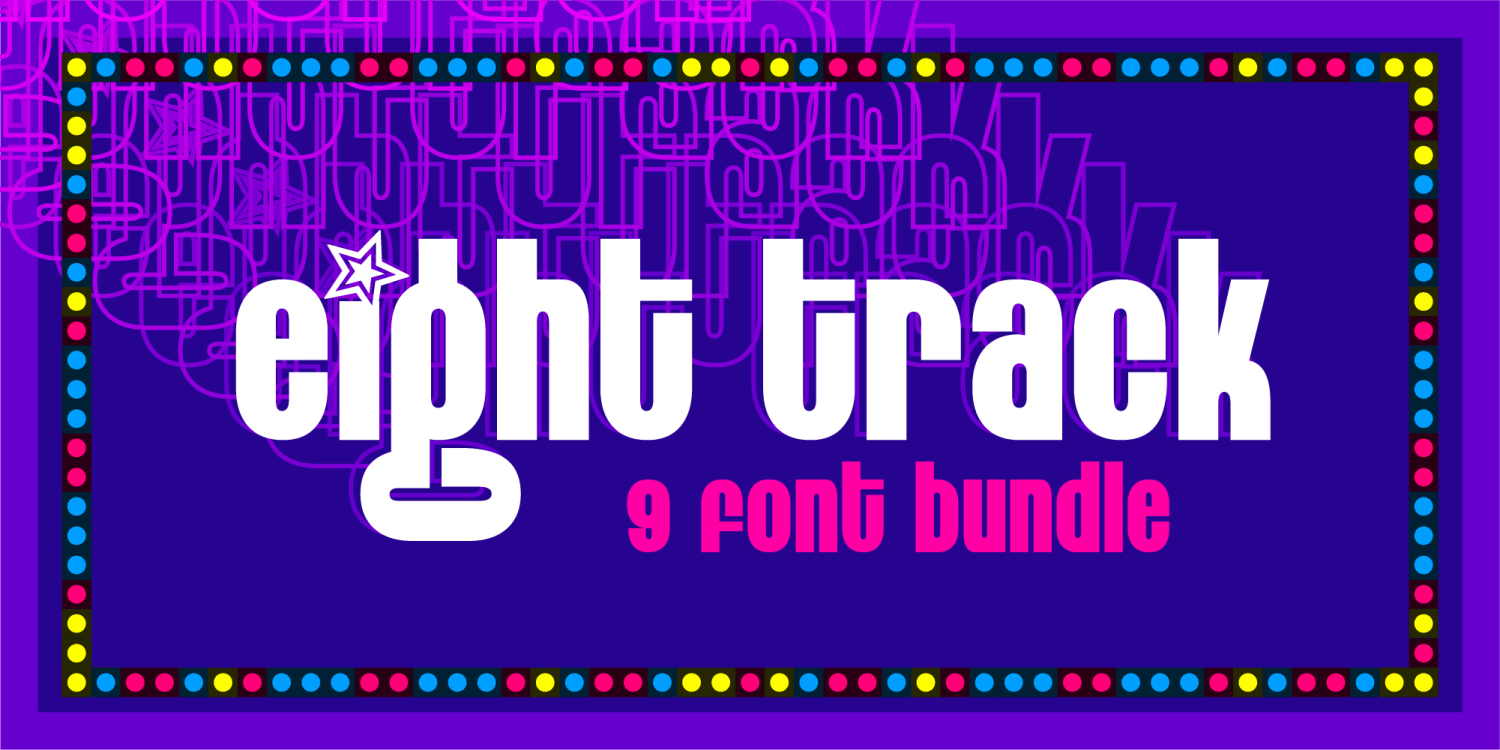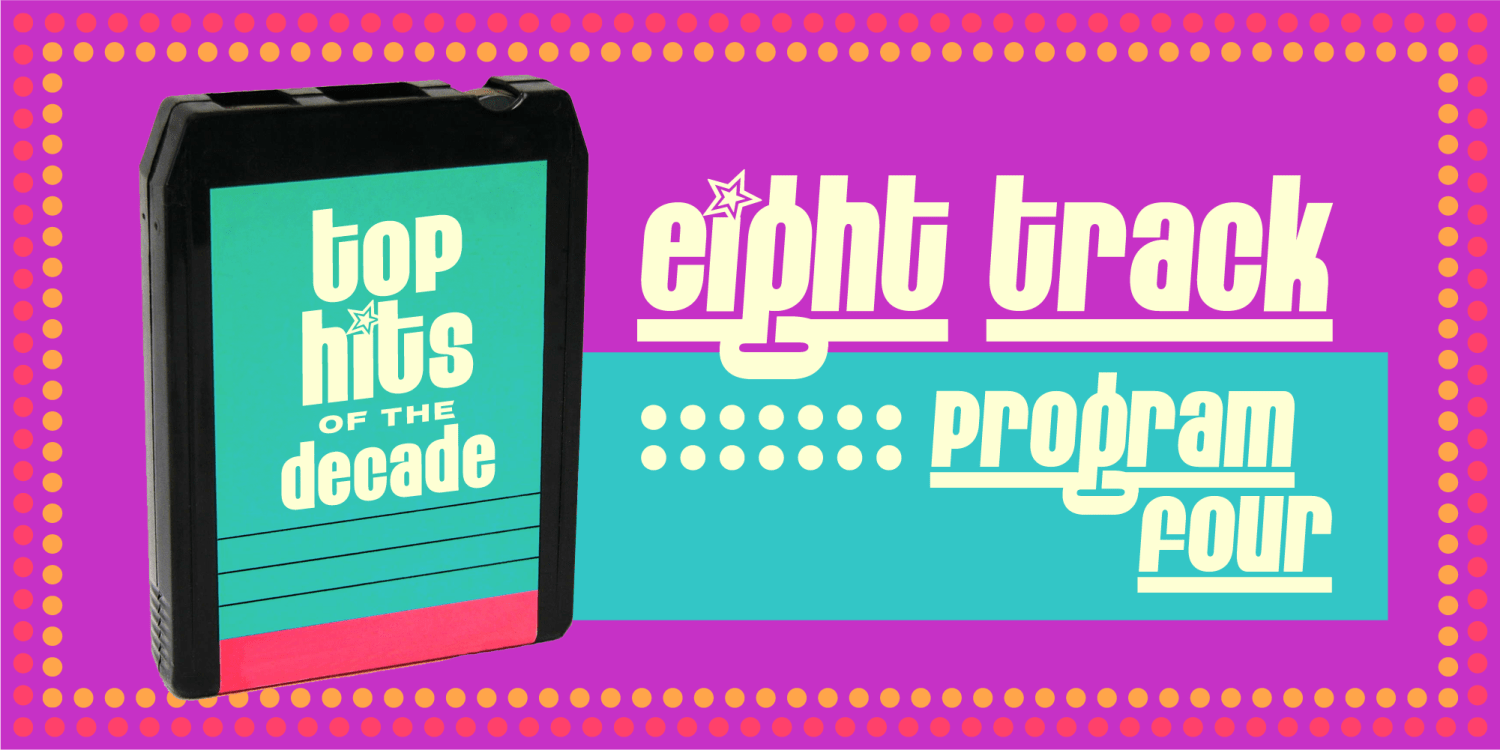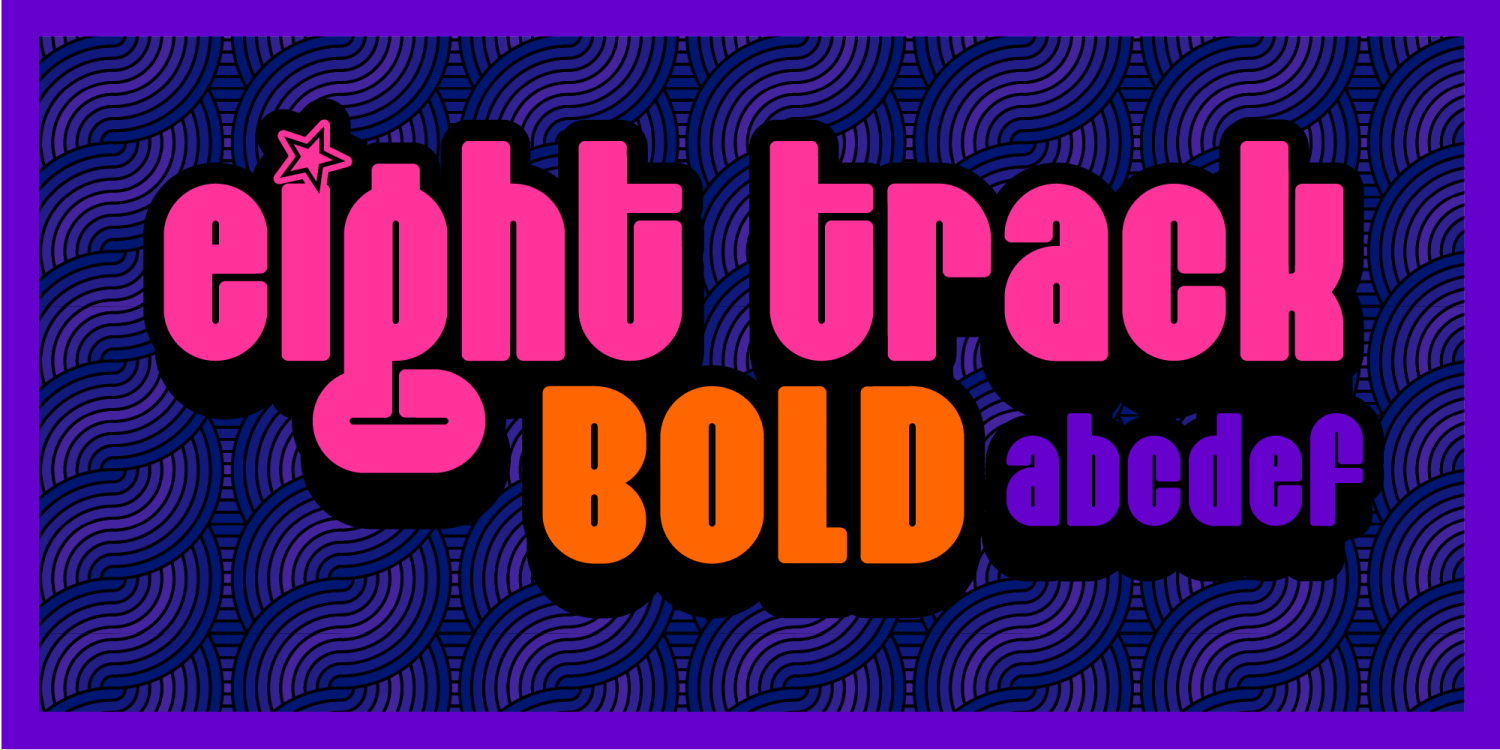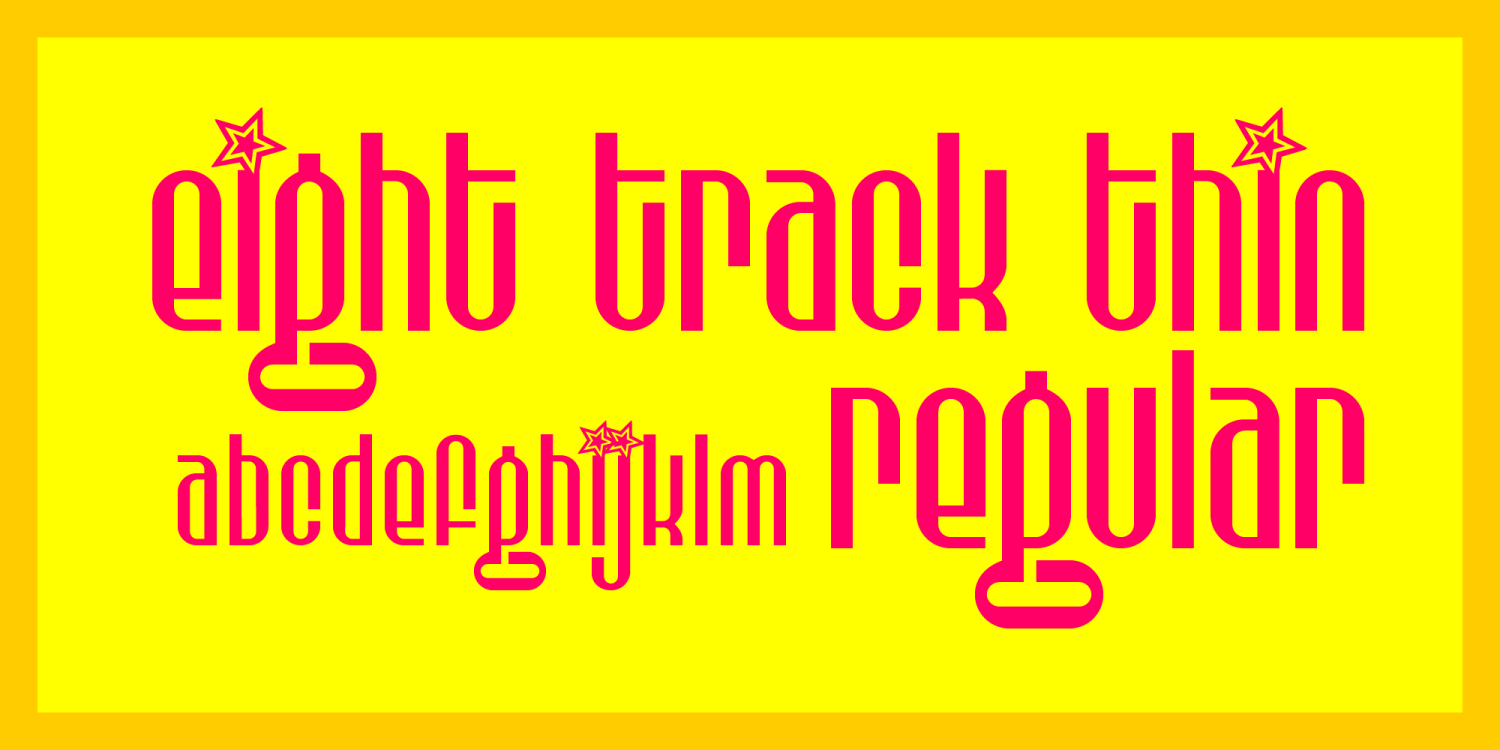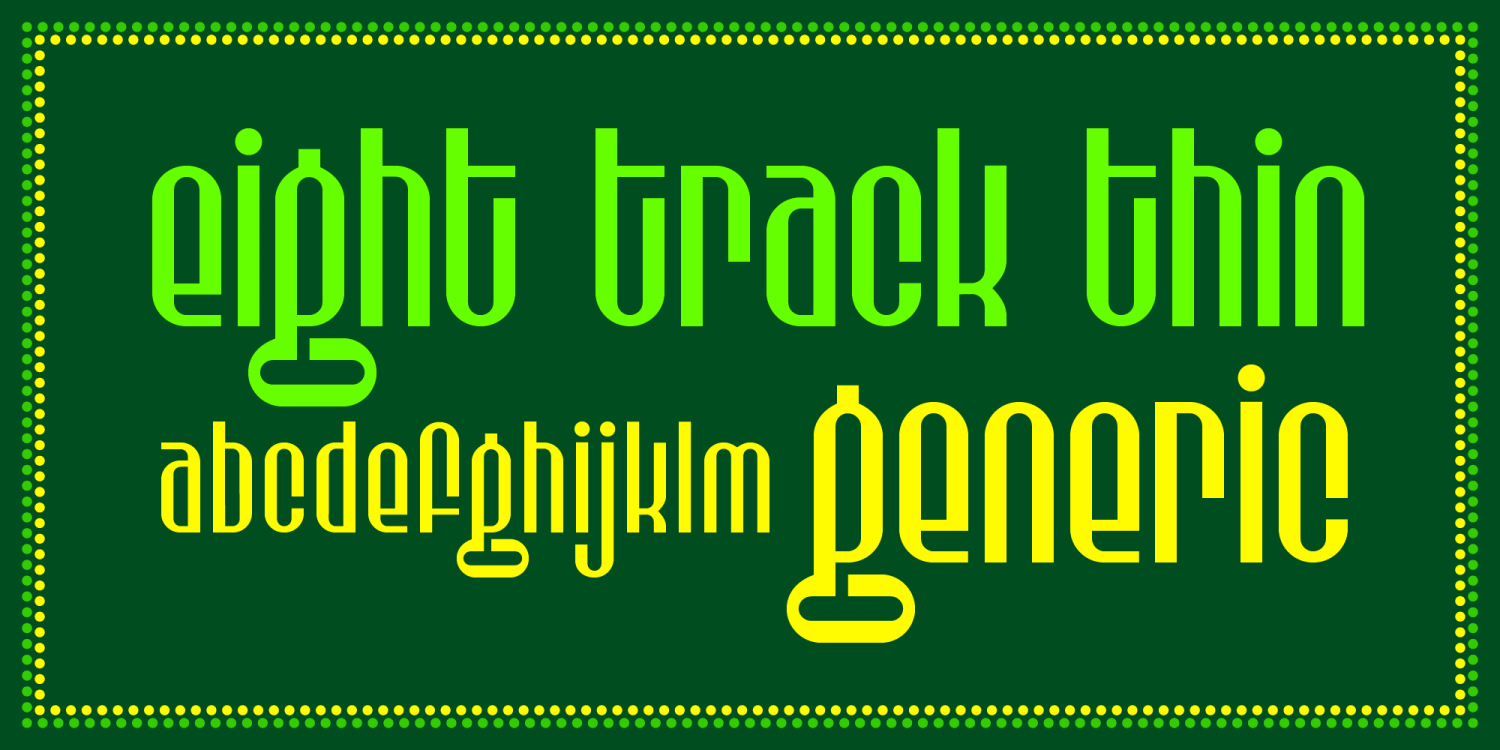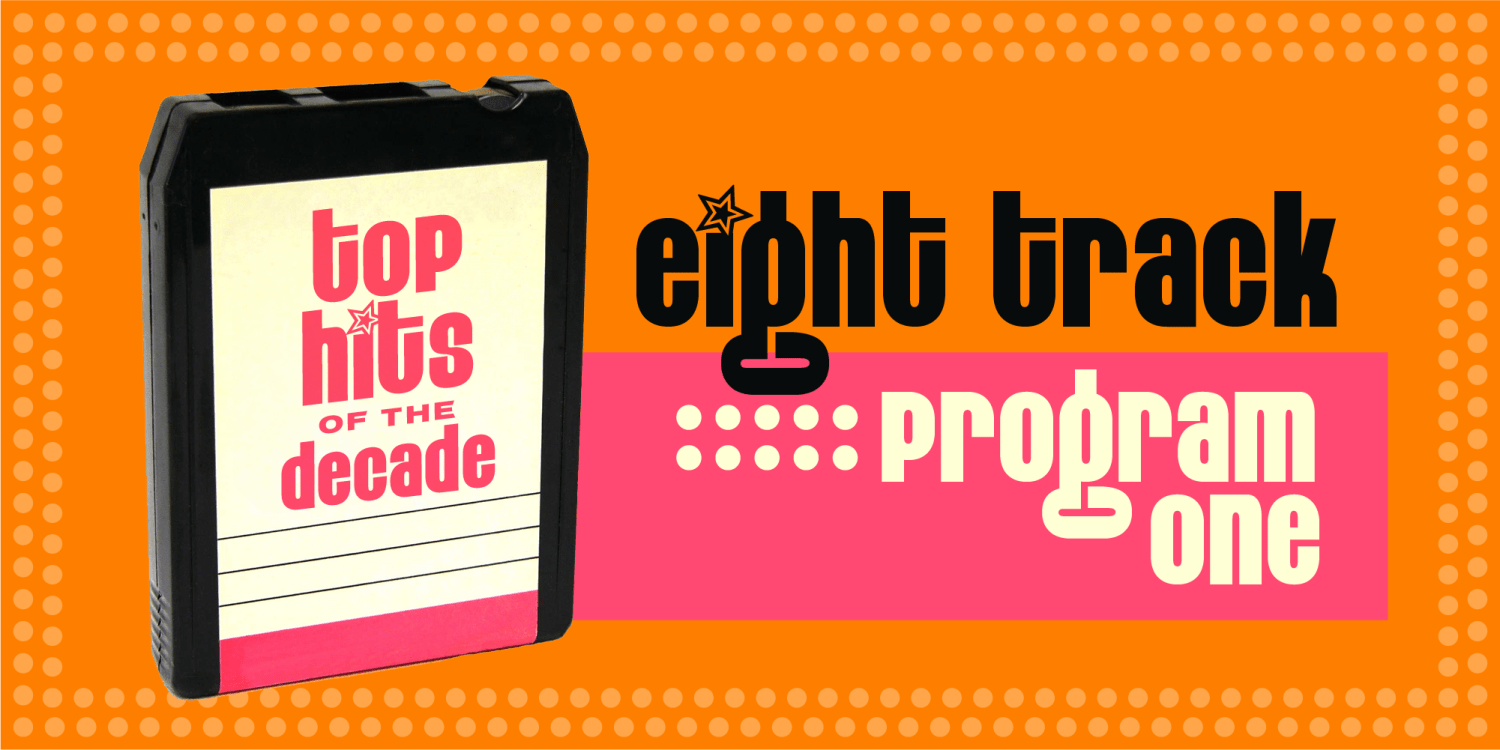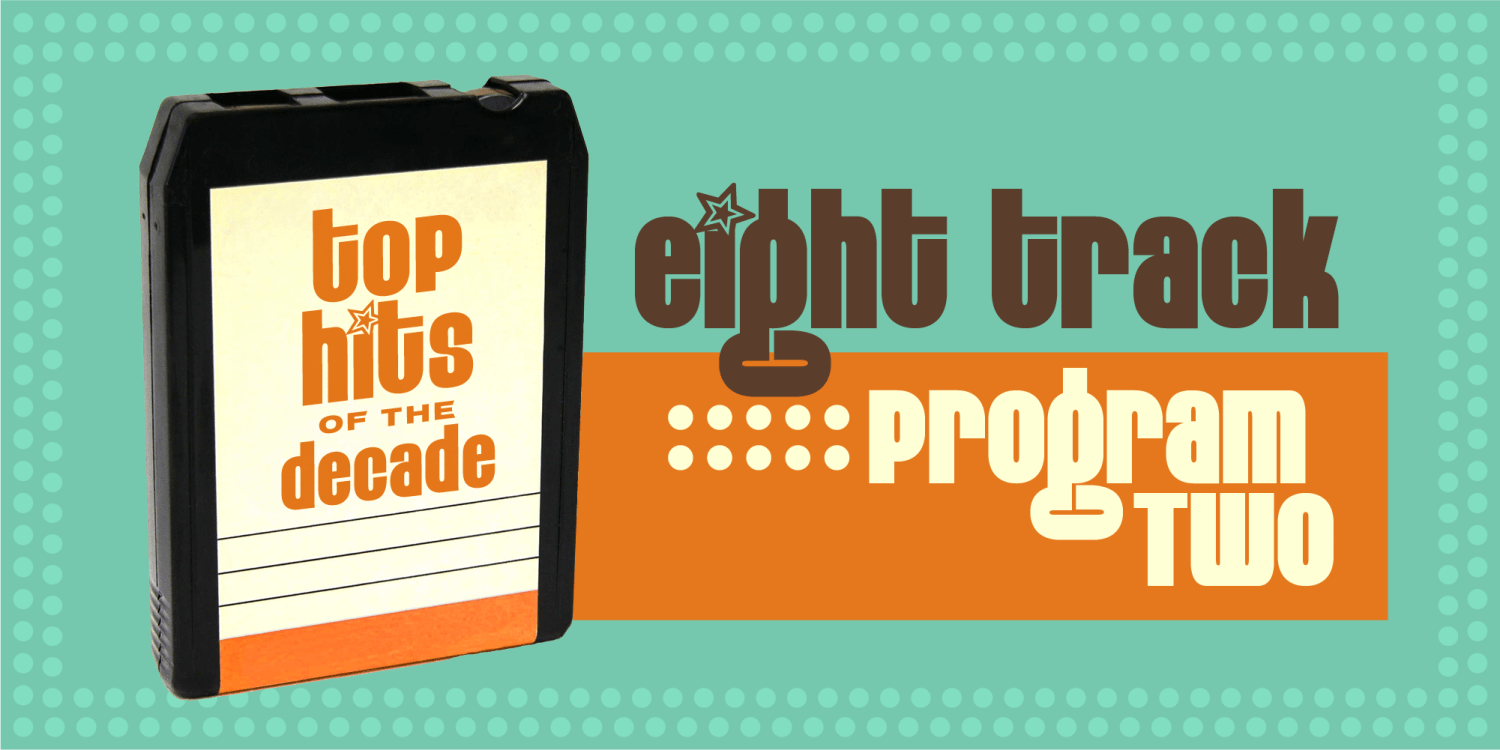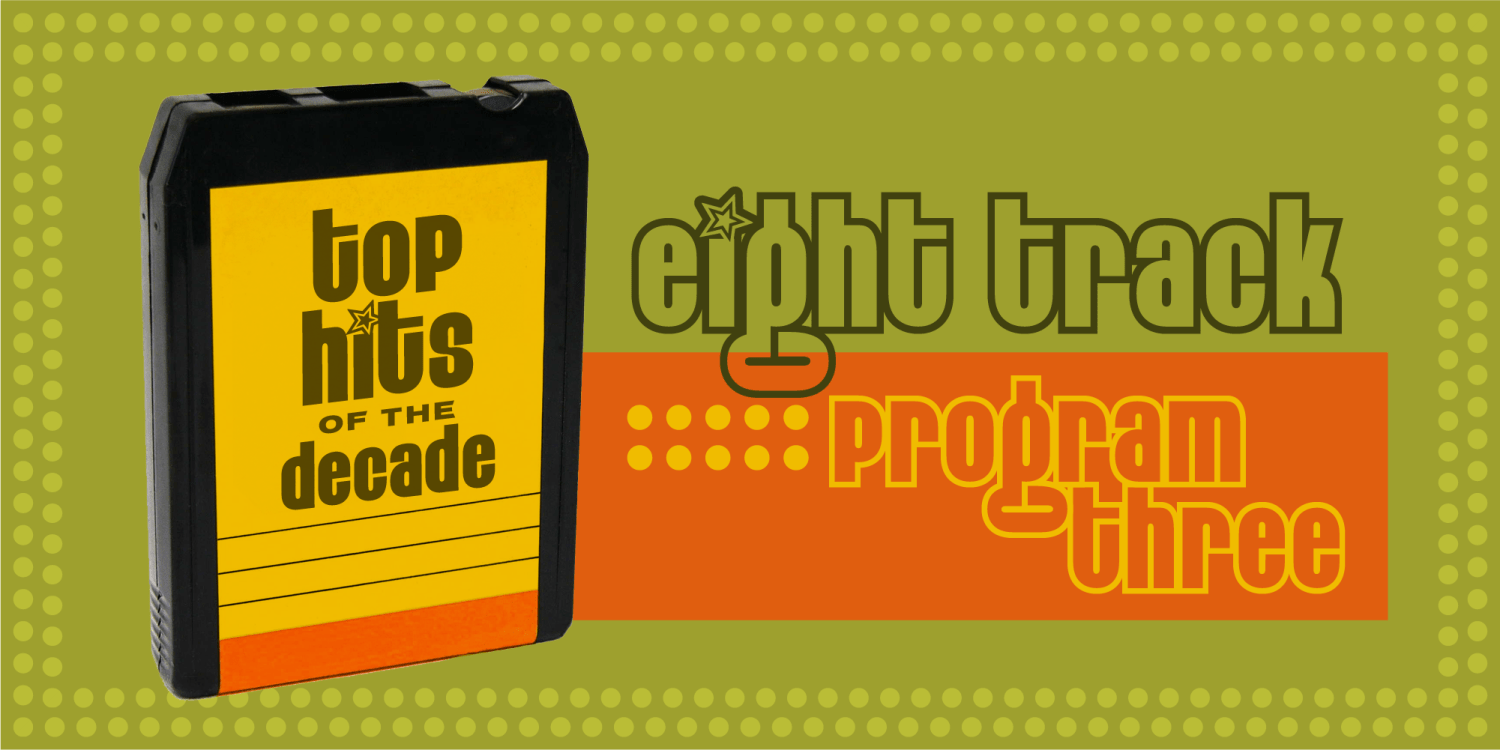
Eight Track Complete
Font Bundle by Fontalicious
Bust out the platforms, Farrah slacks, and polyester disco shirt! This font is gonna take you higher. Pop this little baby in your Weltron 2001 and crank out something pretty.
Eight Track Program One
Eight Track Program Two
Eight Track Program Three
Eight Track Program Four
Eight Track Regular
Eight Track Thin
Eight Track Generic
Eight Track Generic Thin
Eight Track Bold